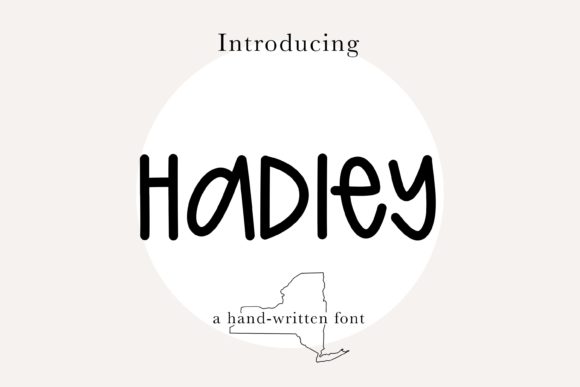
About Hadley Font
Hadley is a playful and versatile mixed capital handwritten sans serif font. With its unique style and charming character, this font adds a touch of fun and creativity to any design project.
One of the key features of Hadley is its mixed capital letterforms. This gives the font a dynamic and energetic look, perfect for adding a sense of playfulness to your designs. Whether you’re creating logos, titles, or headlines, Hadley’s mixed capital letters create a visually appealing and eye-catching effect.
The simplicity and ease of use of Hadley make it a great choice for various craft designs. Whether you’re working on scrapbooking, DIY projects, or personalized gifts, Hadley adds a touch of charm and personality. Its handwritten style gives a handmade and authentic feel to your creations, making them stand out and resonate with your audience.
Hadley’s sans serif nature adds a modern and contemporary touch to its overall design. This makes it suitable for a wide range of applications, from digital designs to printed materials. Whether you’re designing social media graphics, posters, flyers, or even website elements, Hadley brings a sense of freshness and creativity to your compositions.
The versatility of Hadley extends beyond craft designs and digital applications. It can also be used for branding and logo designs. The mixed capital letterforms provide opportunities for creative logo layouts, allowing you to play with the arrangement and combination of letters. This helps create unique and memorable brand identities that reflect a sense of fun and individuality.
In conclusion, Hadley is a fun and mixed capital handwritten sans serif font that adds a playful and creative touch to your designs. Its versatility and charm make it suitable for various craft projects, digital designs, and branding purposes. Use Hadley to bring a sense of joy and originality to your creations and let its unique style shine through.